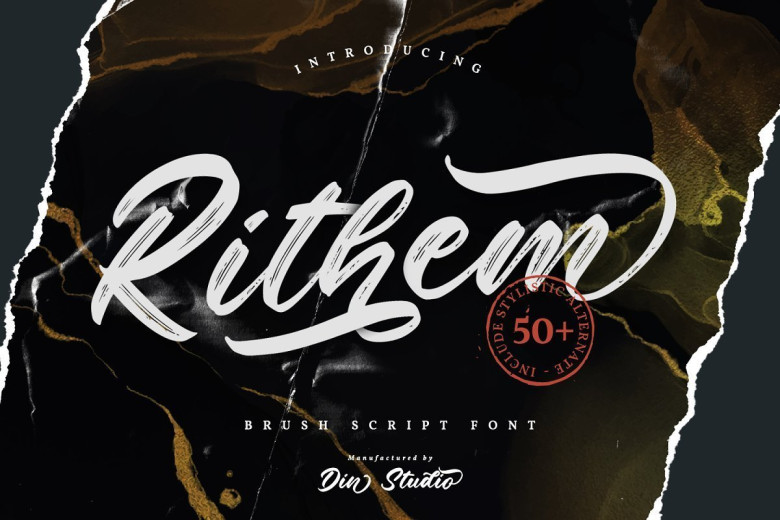
Rithem Brush Script Font
Rithem Script Font is a classy brush font. The brush combined with calligraphy font will make your design project more powerful. Made for any professional project branding. It is the best for logos, branding and quotes. Every letter has a unique and beautiful touch.
All fonts containing upper & lowercase characters, numerals, punctuation, ligatures. This typeface is perfect for branding, wedding, fashion, photography title, poster, social media, music album, book cover, packaging, handwritten quotes, greeting cards, and advertising.